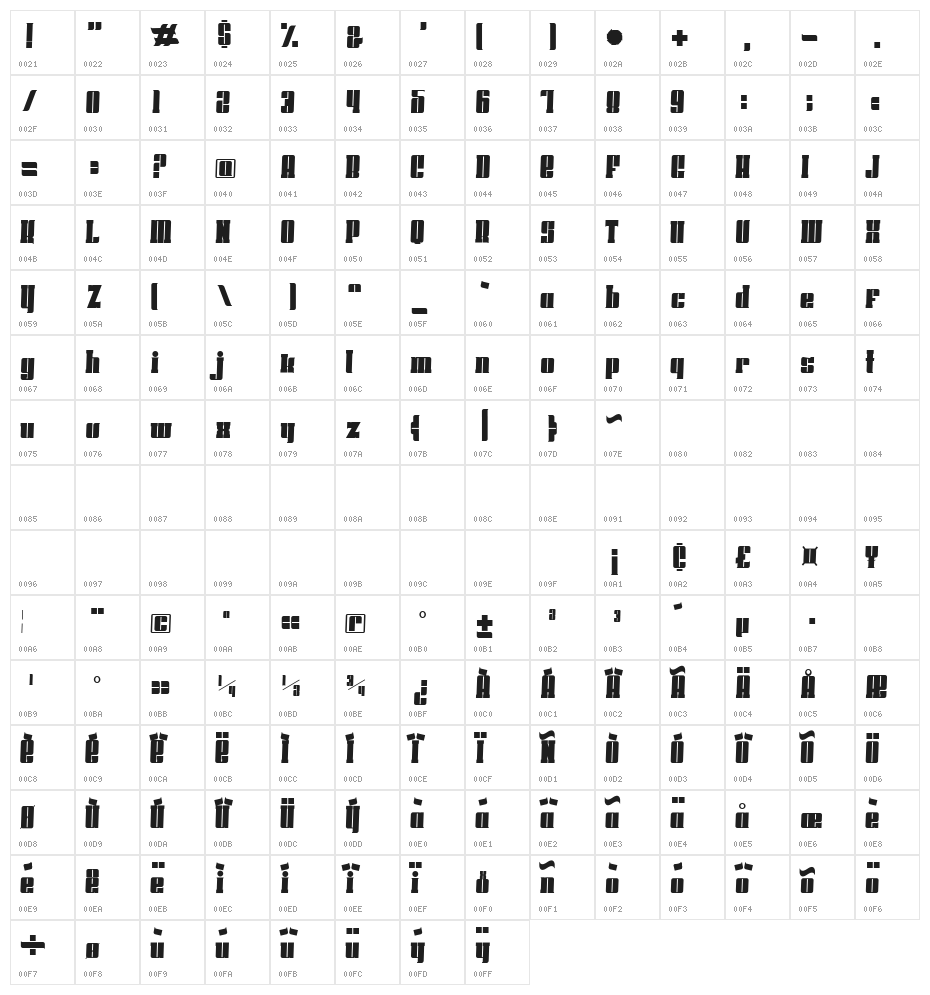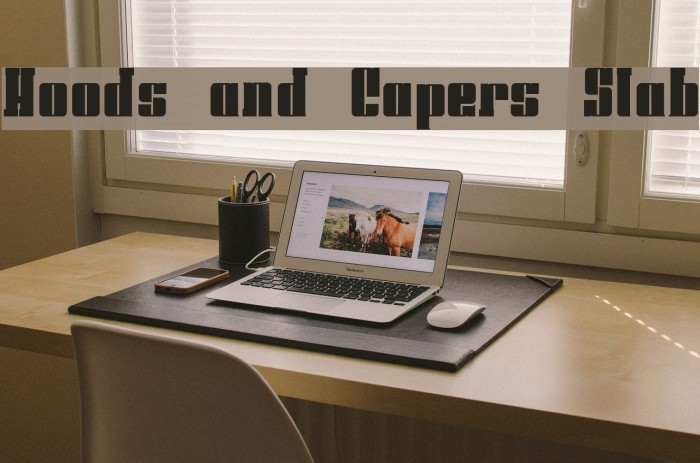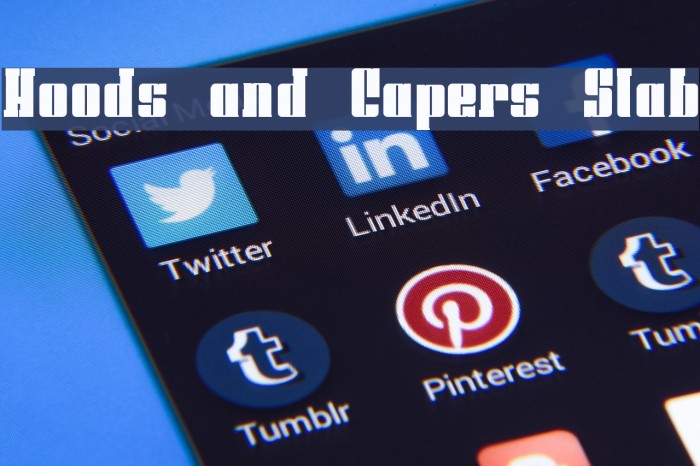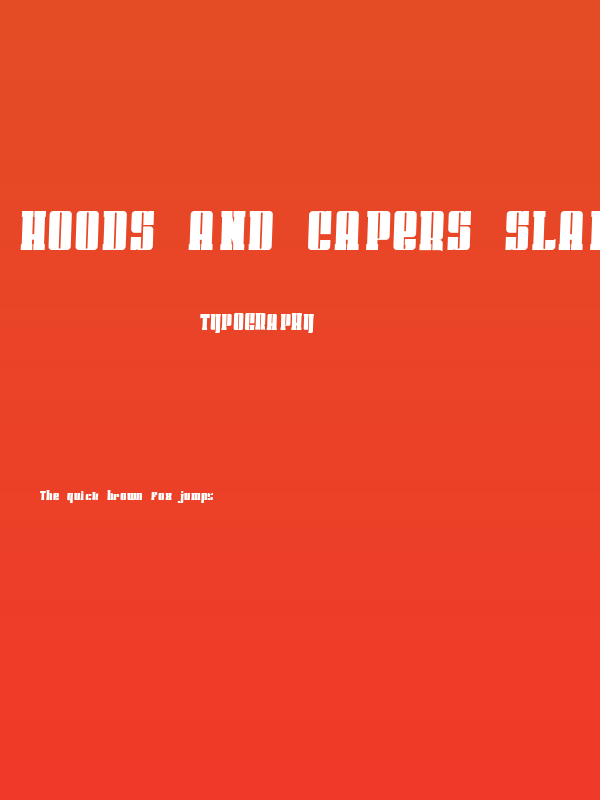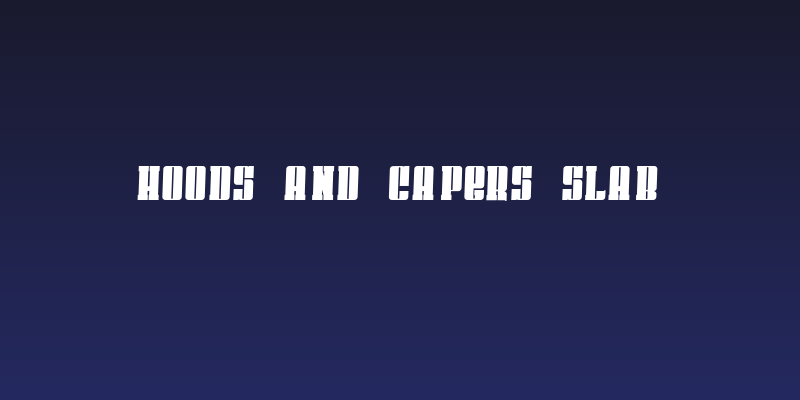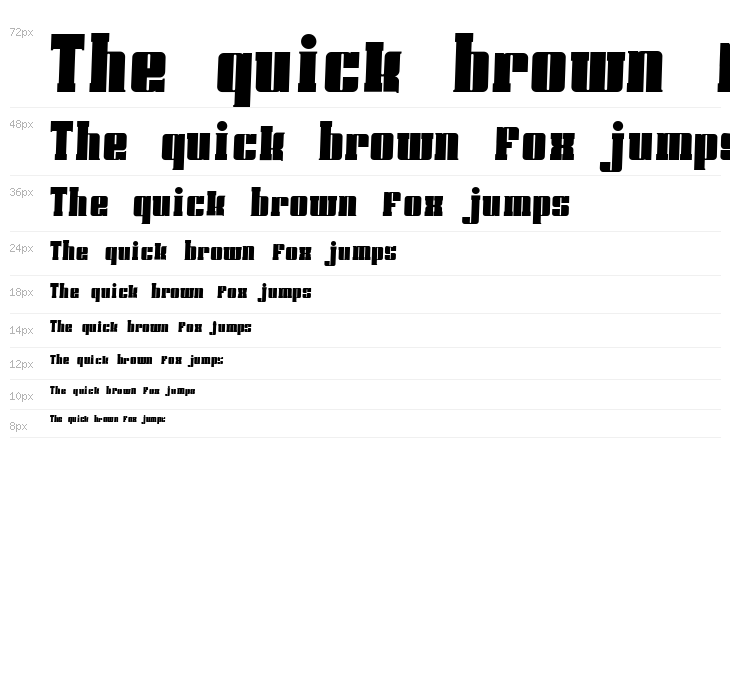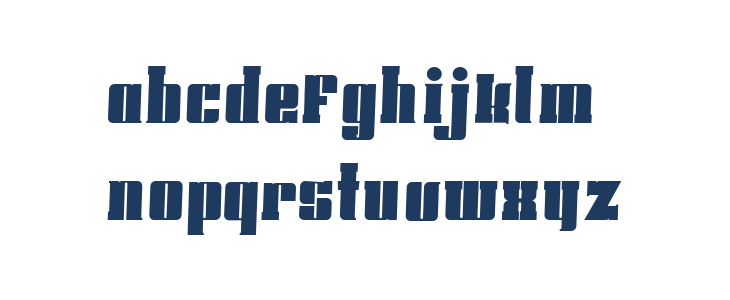
Hoods and Capers Slab Font
Hoods and Capers Slab Description
This font features a bold, slab serif style with strong geometric shapes and thick strokes. The characters are blocky and robust, giving a sense of stability and strength. The uppercase letters are particularly striking, with wide, solid forms that command attention. The lowercase letters maintain the same boldness, ensuring consistency throughout. Numbers and special characters follow the same design principles, making them easily readable and visually impactful. This font is ideal for projects that require a strong, assertive presence.
| Proposed Projects | Ideal for posters, headlines, branding, and any design needing a strong, assertive presence. |